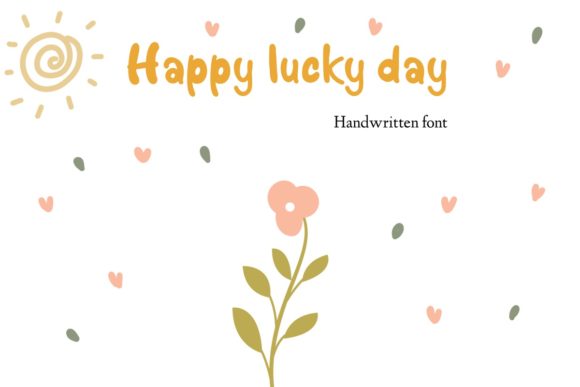
Introducing the enchanting Happy Lucky Day Font – your passport to a world of creative wonders! This exquisite script font is lovingly crafted to ignite your imagination and captivate your audience.
Step into a world where memories are etched with sugary sweetness and heartfelt warmth. Happy Lucky Day's charming handwritten strokes evoke a sense of nostalgia and whimsy that will leave an unforgettable mark on your designs.
Whether you're crafting a heartfelt wedding invitation or adding a touch of elegance to your social media posts, Happy Lucky Day is your trusted companion. Its versatile nature lends itself effortlessly to a symphony of creative expressions.
Visualize the joy it will bring as you adorn your invitations with its charming curves, creating a keepsake that will be cherished forever. Envision your stationary art blossoming into a garden of delight, where each letter dances with grace and charm.
But Happy Lucky Day's allure extends far beyond paper. Unleash its magic on your digital canvas, where it will transform your social media presence into a captivating spectacle. Prepare to witness your followers entranced by its playful spirit and undeniable charm.
Join the creative revolution with Happy Lucky Day Font. Let its sweet embrace inspire your designs and create a legacy of lasting impressions. Every stroke, every curve, is a testament to the power of imagination and the magic of handwritten charm.